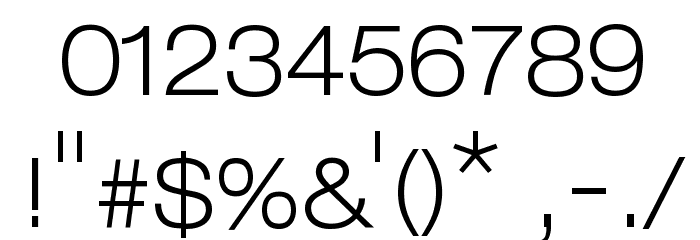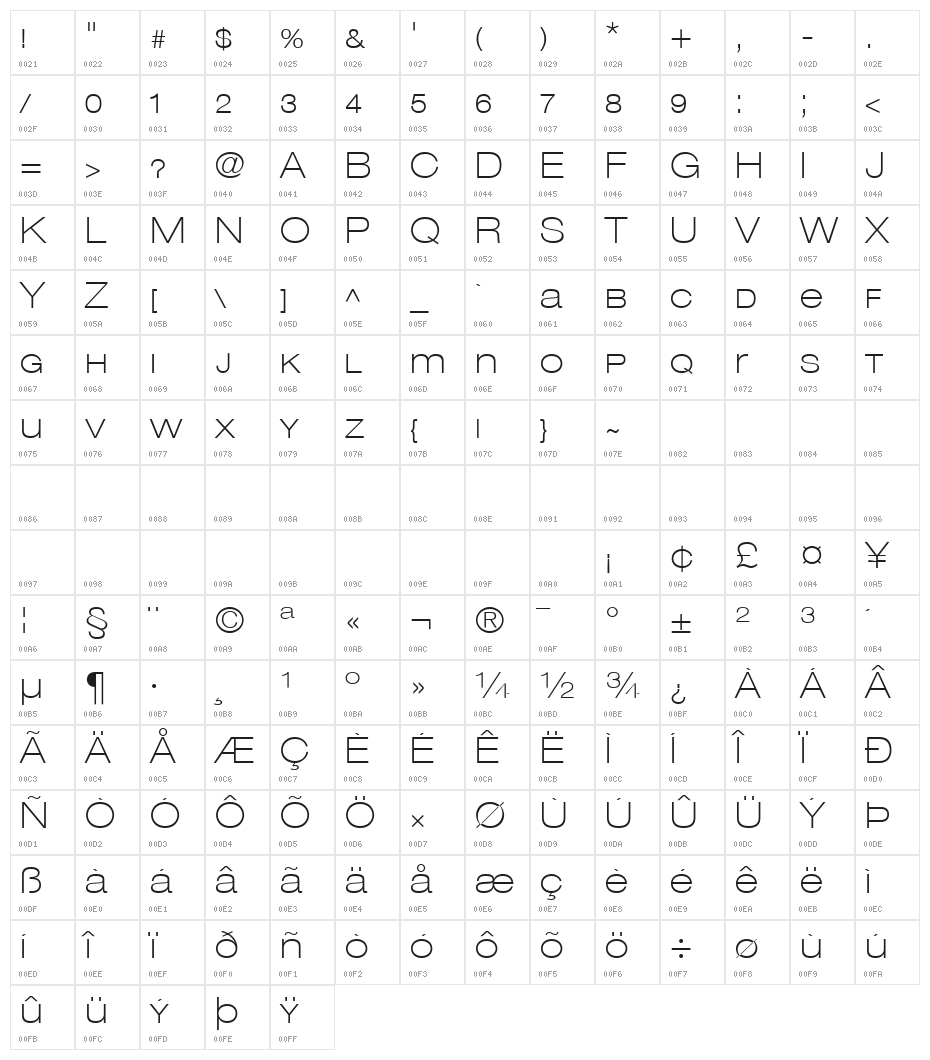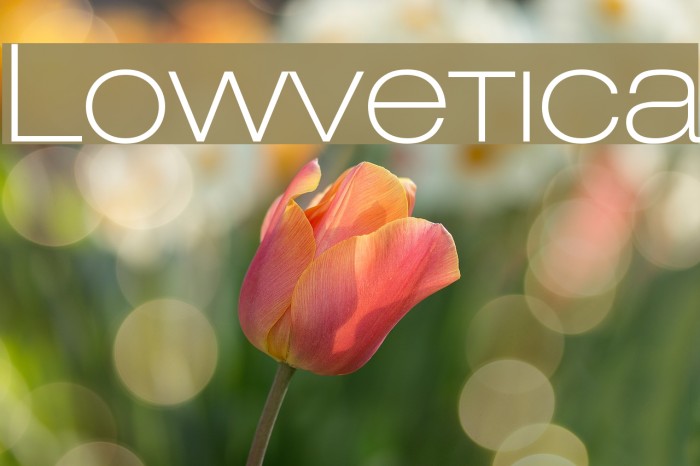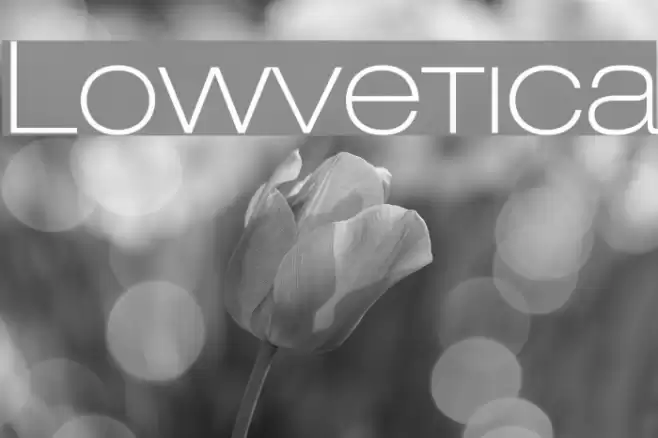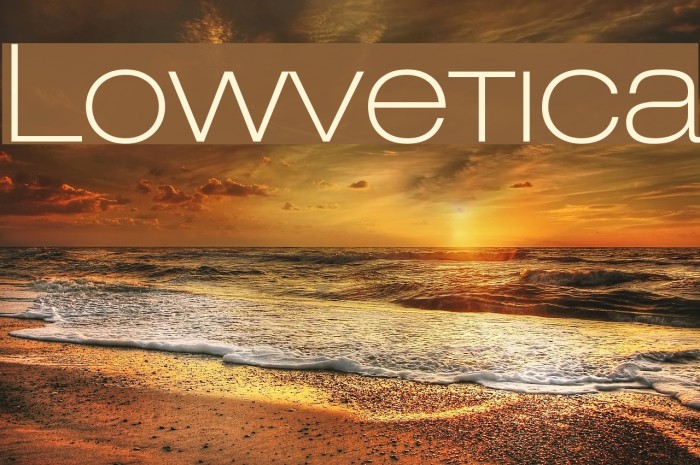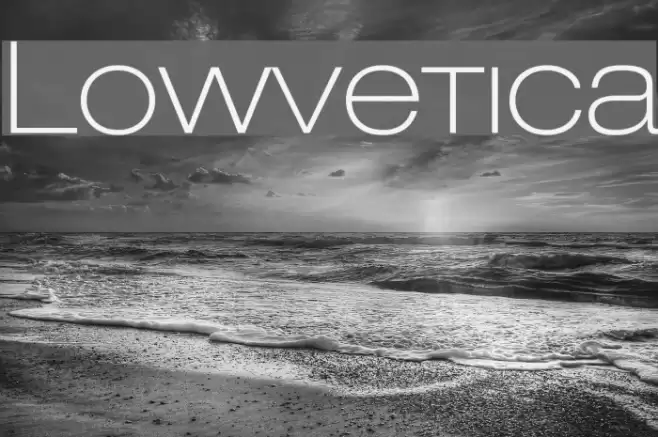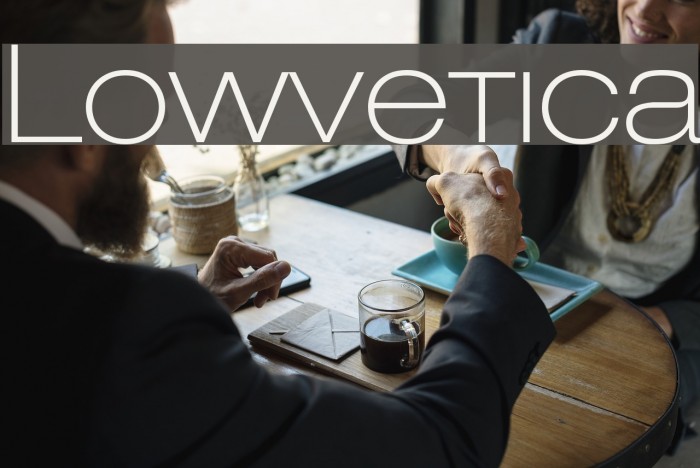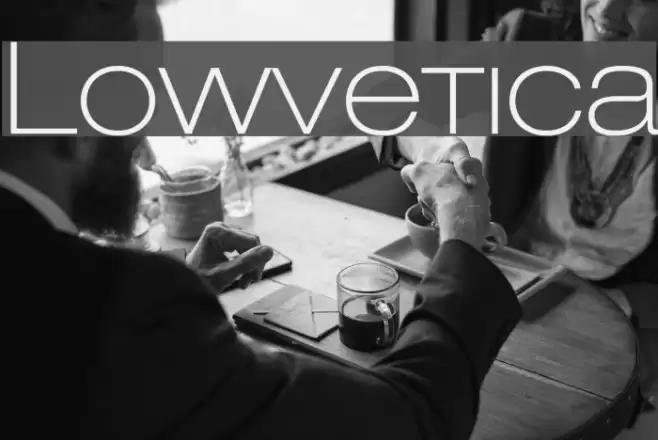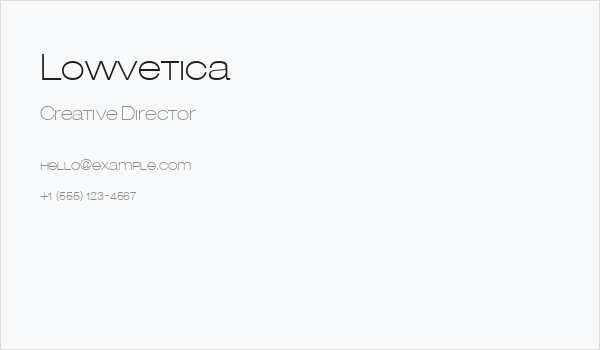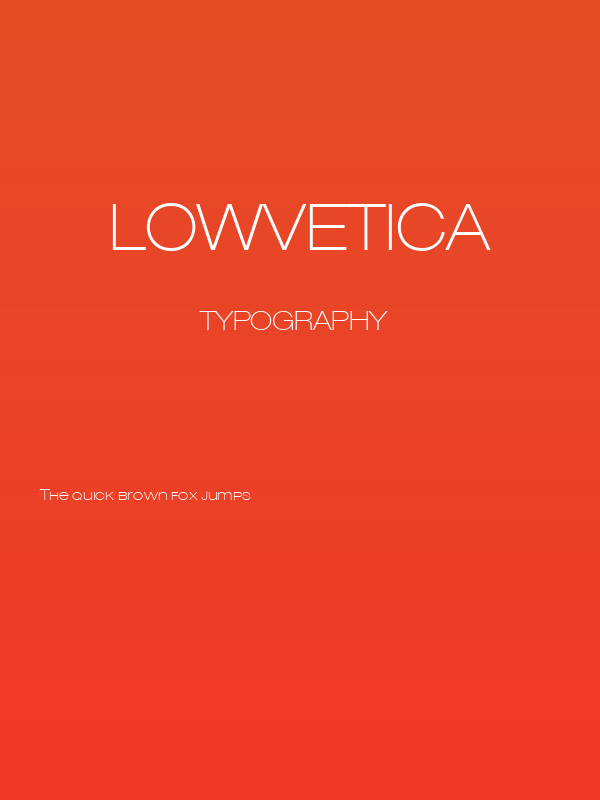
Lowvetica Font
Lowvetica Description
This font features a clean, modern sans-serif design with a geometric structure. The characters are uniform in width, contributing to a balanced and harmonious appearance. The uppercase and lowercase letters maintain consistent proportions, enhancing readability. The numerals are straightforward and align well with the overall aesthetic. Special characters are clearly defined, complementing the minimalist style. The font's simplicity and clarity make it versatile for various design applications, from digital interfaces to print media.
| Proposed Projects | Ideal for branding, web design, advertising, and editorial layouts due to its clarity and modern appeal. |